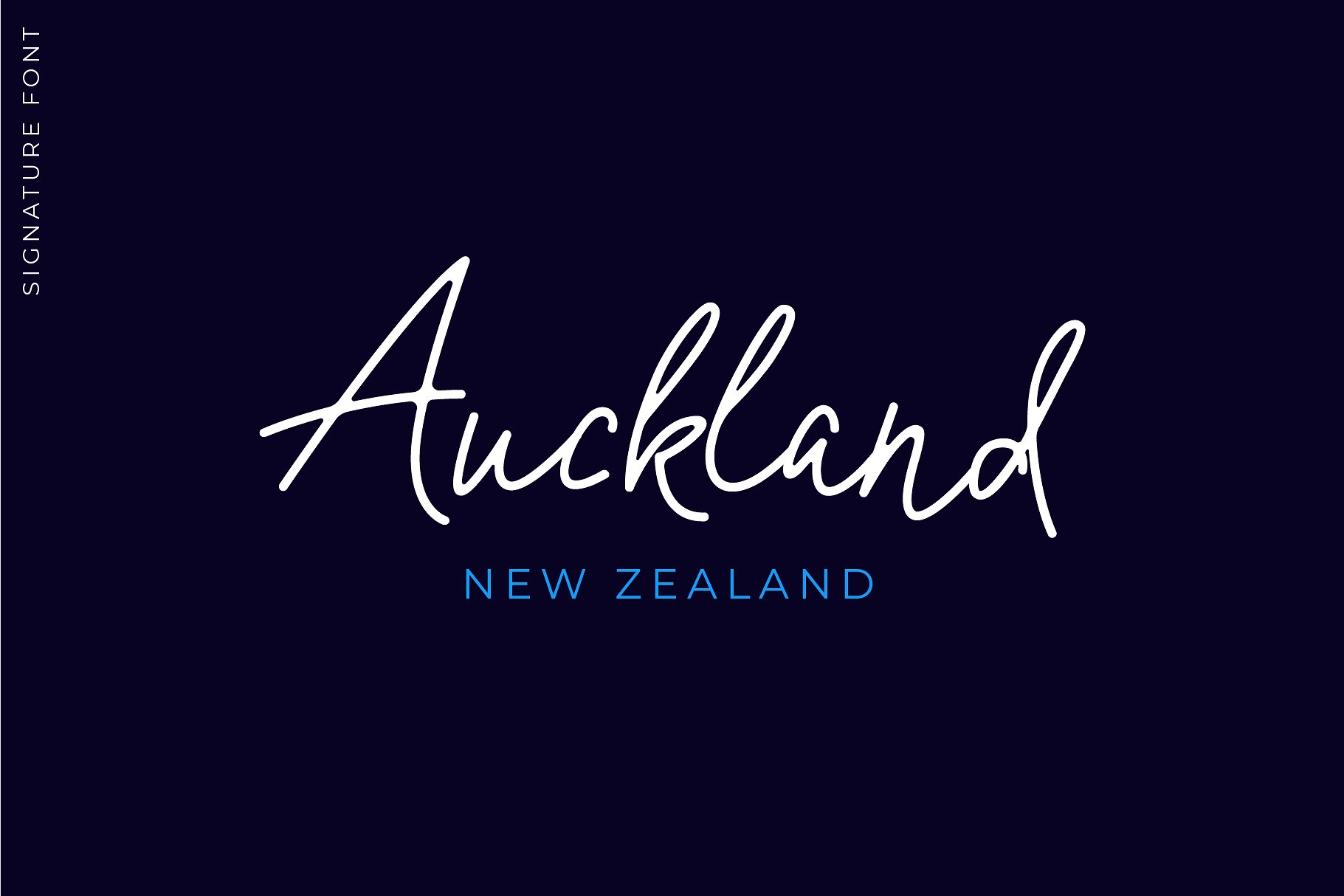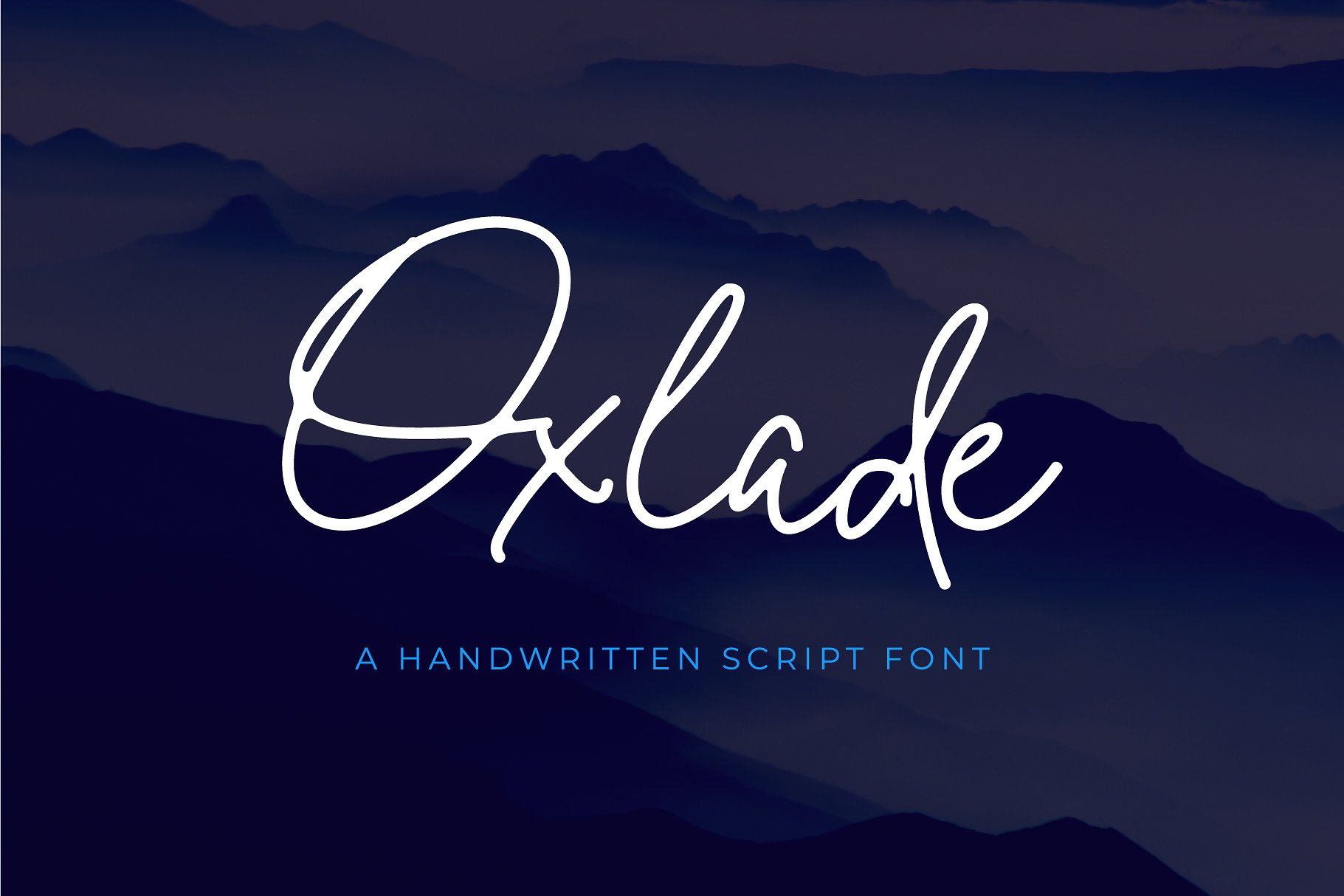
Oxlade Handwritten
Oxlade Handwritten Font
I’m a new handwritten signature font named Oxlade or you can call me Ox. I’ve been created to make signature easy for you. Also you can use Ox for logo type, packaging, product design and more.